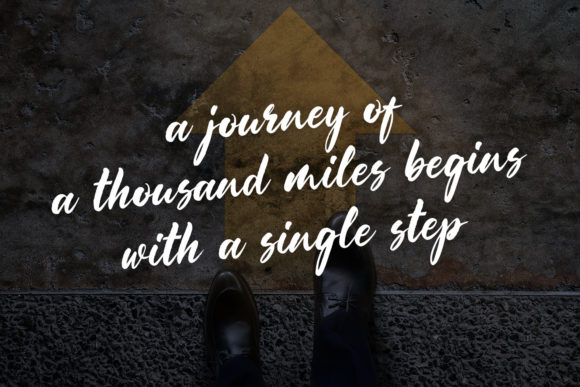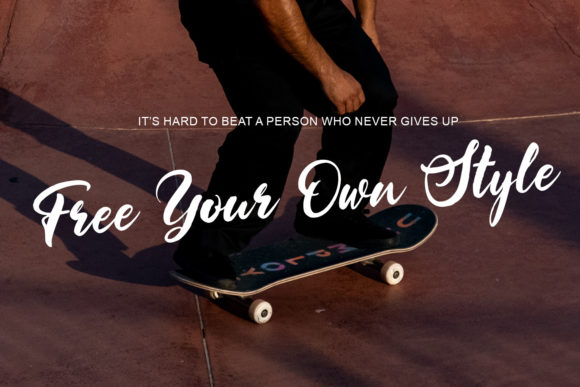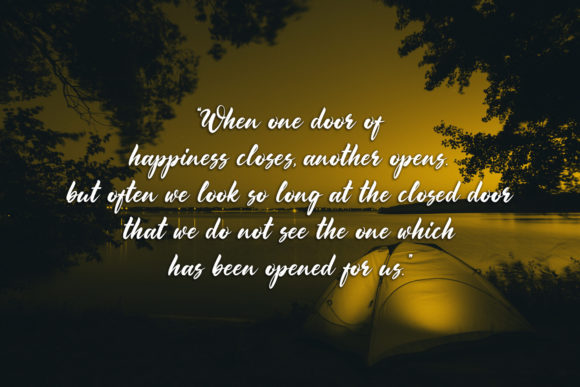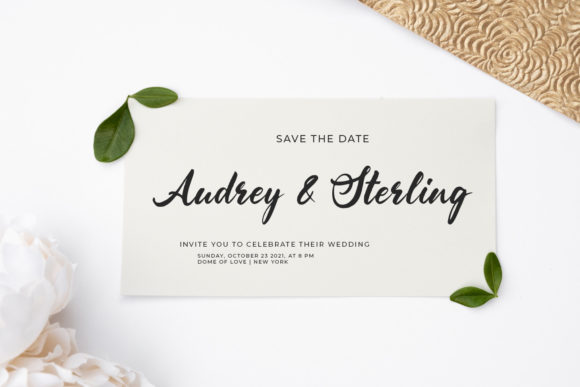
Immortal Paradise Font
About Immortal Paradise Font
Immortal Paradise is an elegant and dainty handwritten font that features sweet and delicate swashes. This original look will appeal to a wide range of crafty ideas, from letterheads and titles, to stationery.